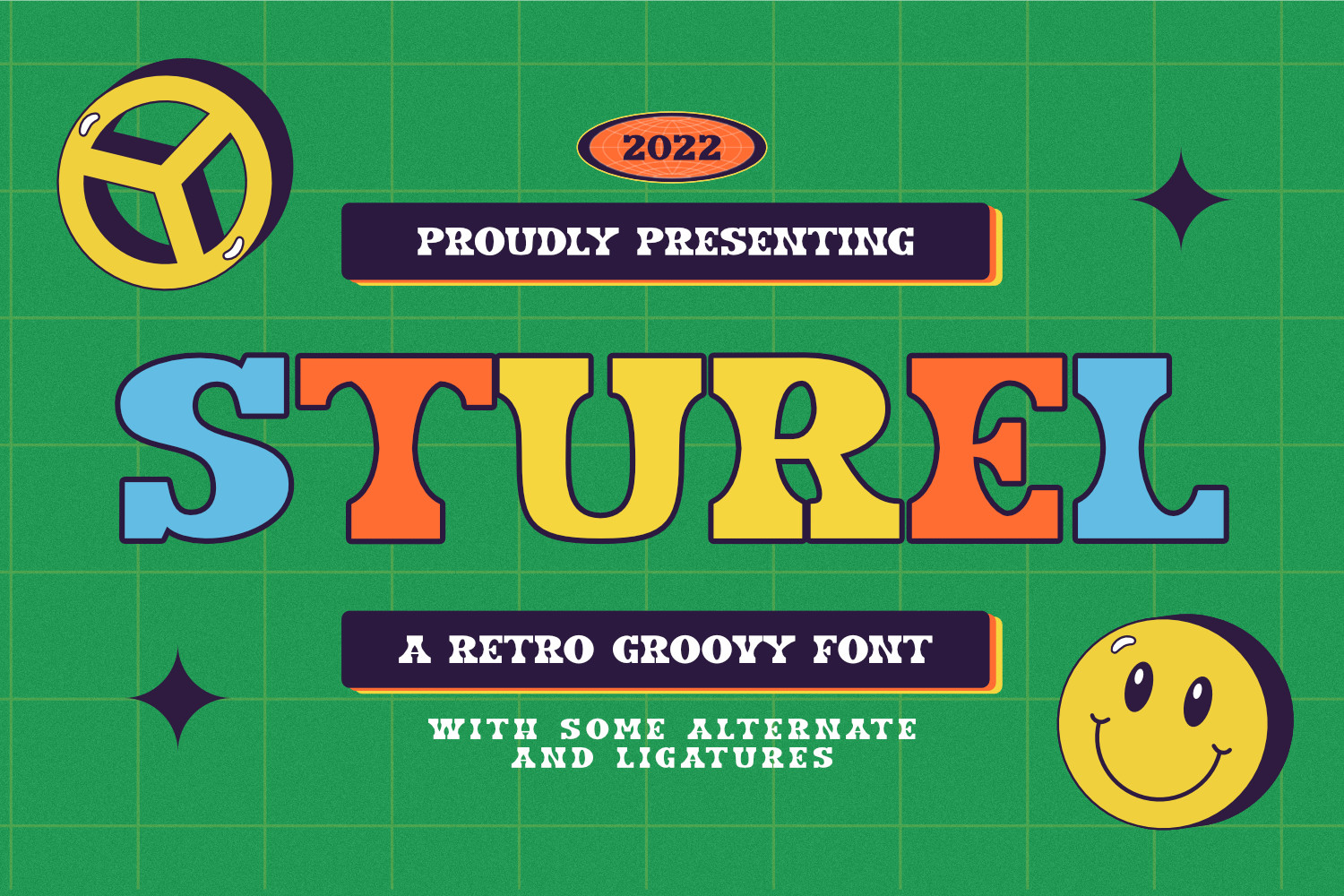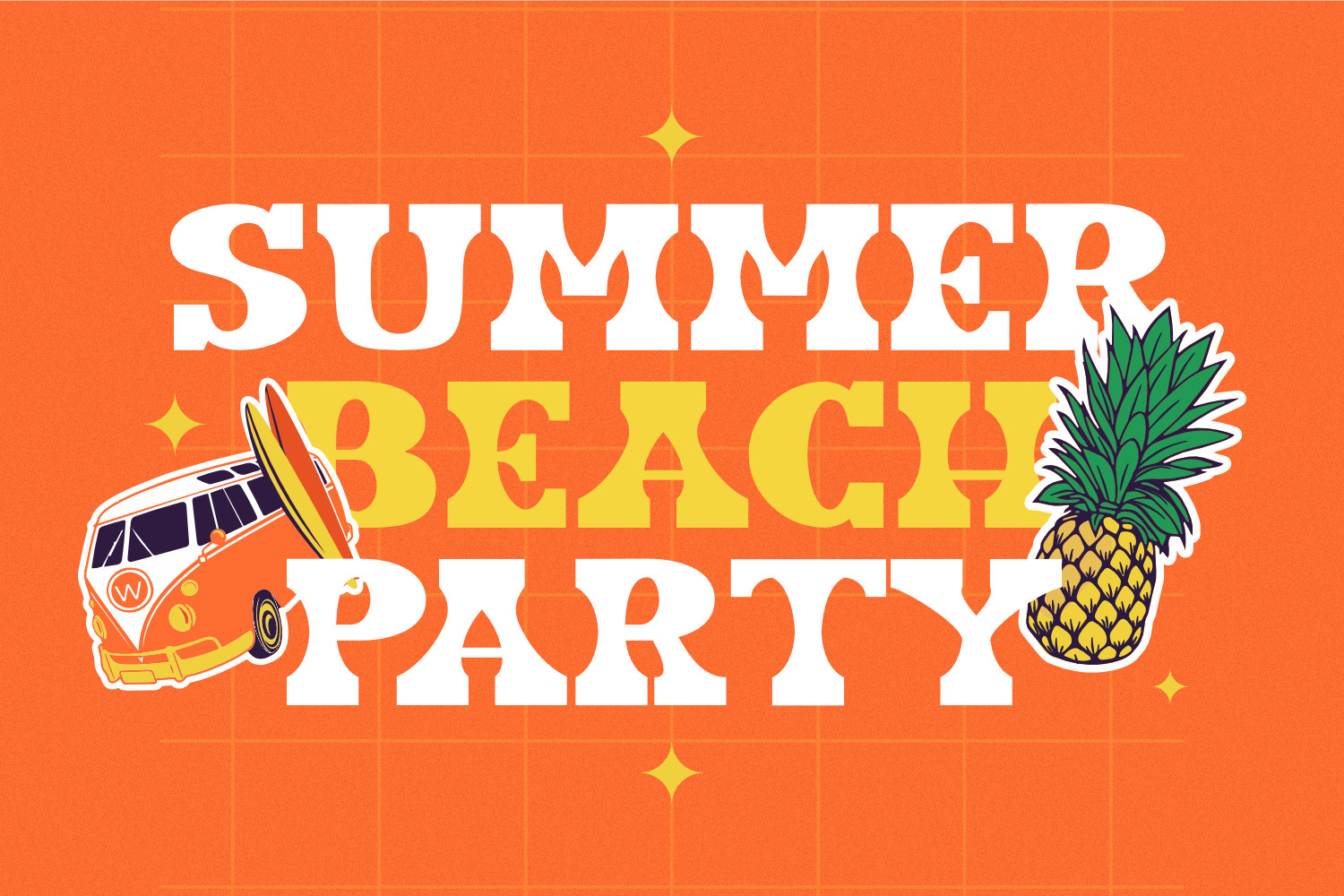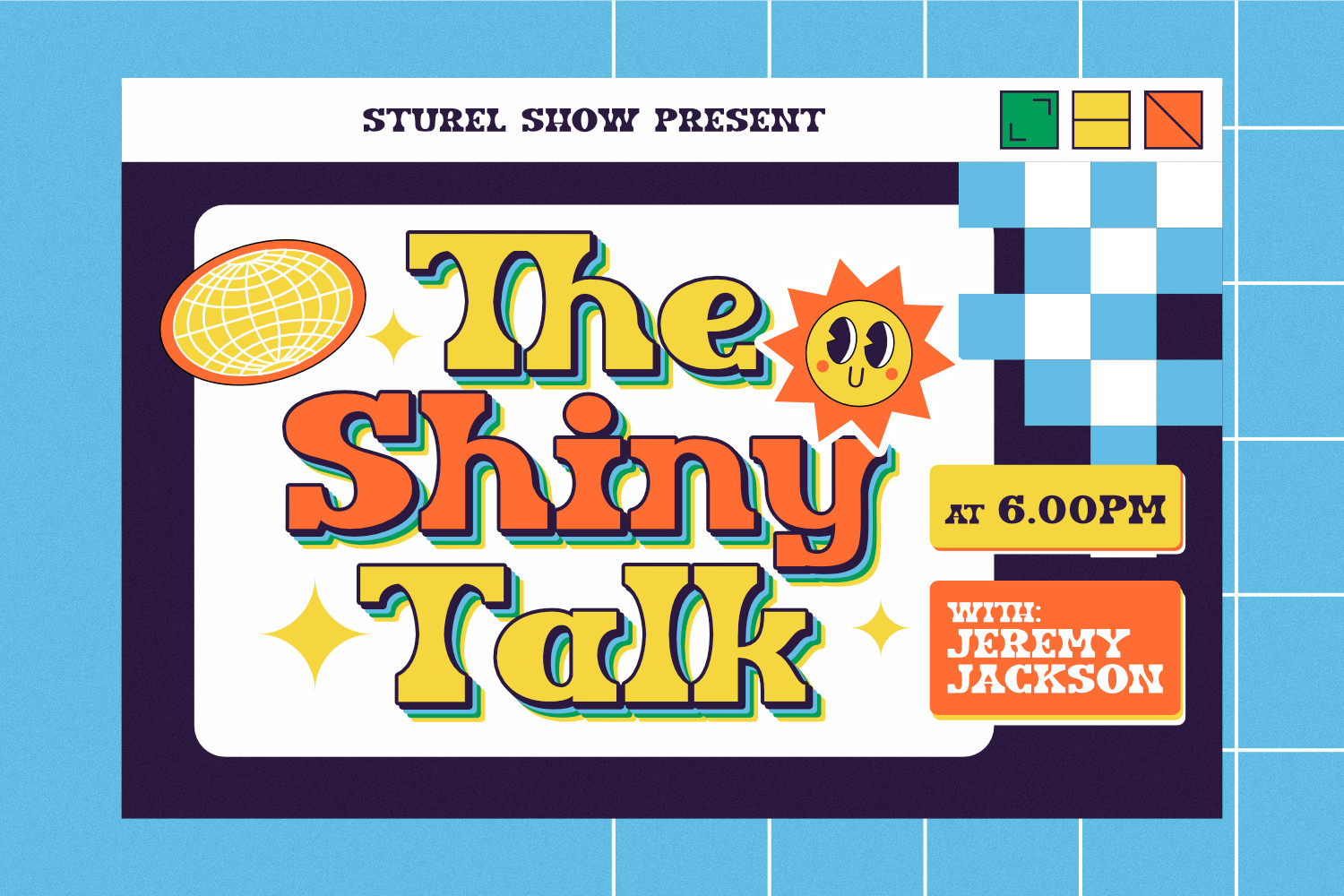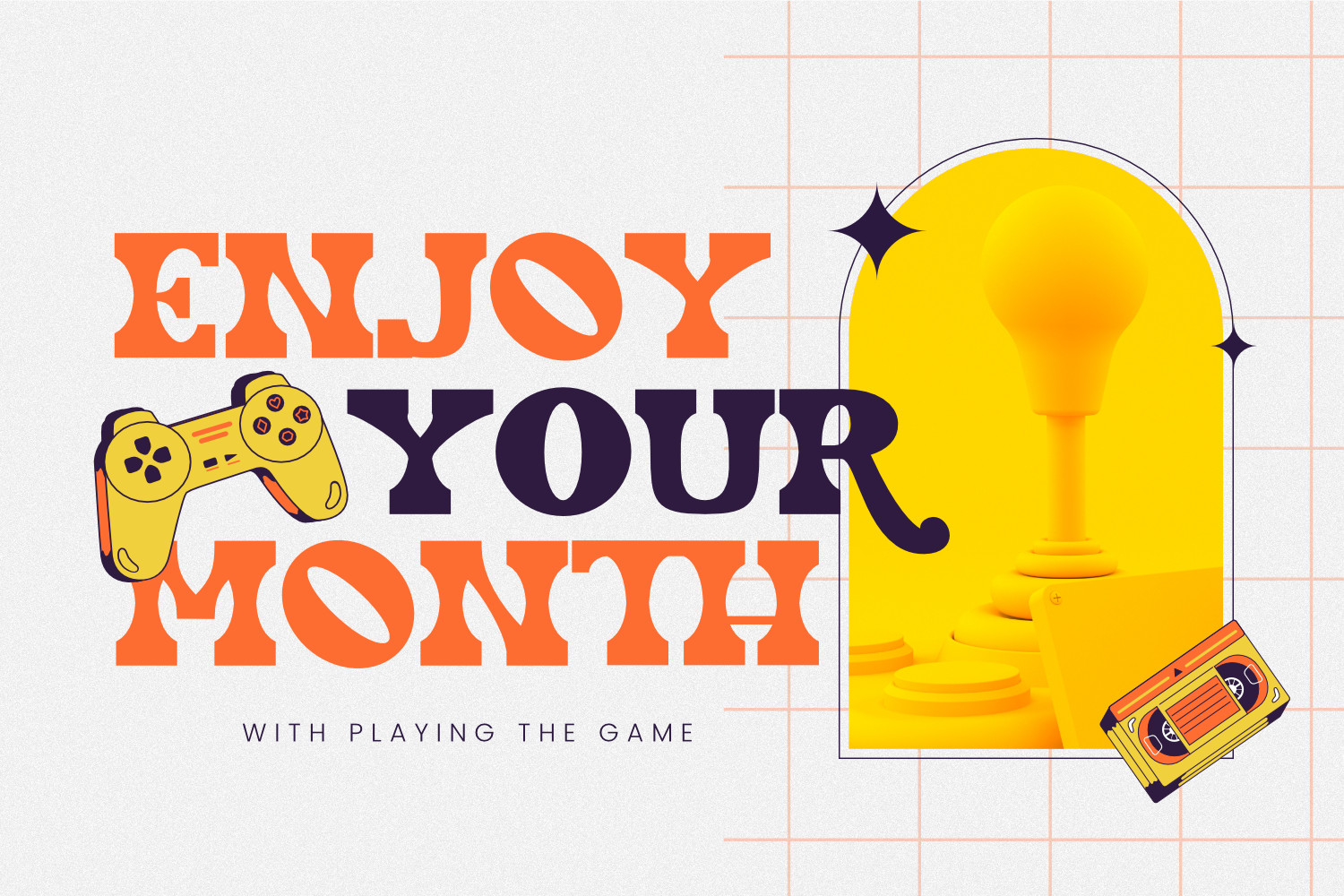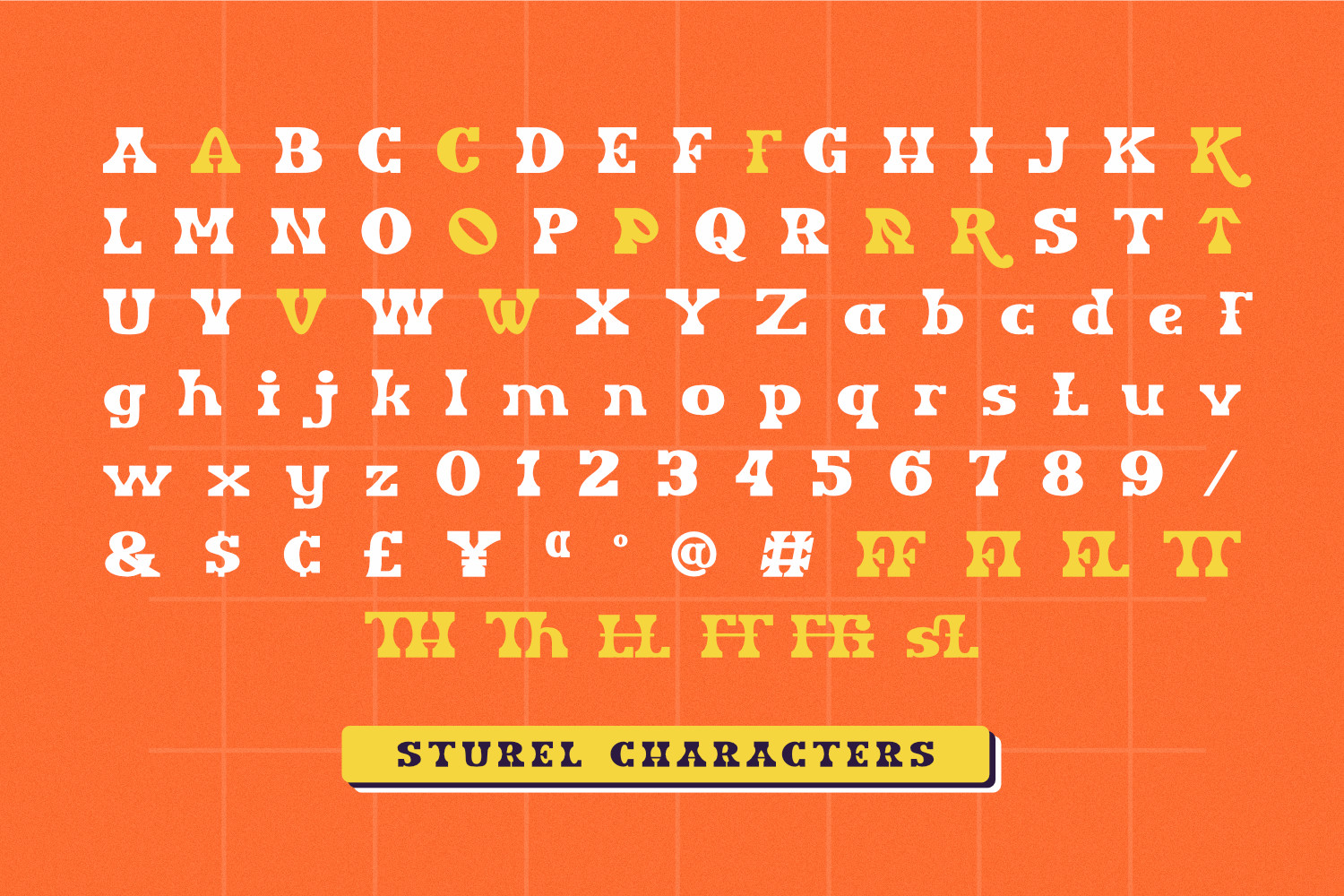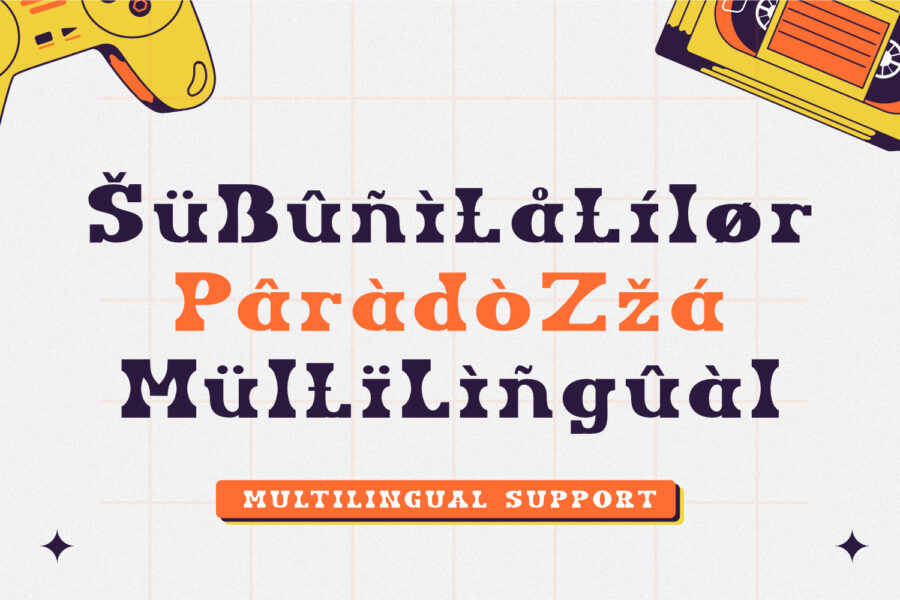
Sturel is a retro groovy font that bursts with vibrant personality and playful energy. With its bold, chunky letterforms and whimsical curves, Sturel is inspired by the carefree spirit of the ‘60s and ‘70s. Its cheerful vibe is perfect for evoking nostalgic feelings in modern design, especially for projects related to summer events, retro branding, or anything needing a youthful pop.
The font includes alternate characters and fun ligatures to enhance flexibility and visual interest. Whether used in vibrant posters, groovy packaging, or funky social media graphics, Sturel delivers a joyful statement while remaining readable and dynamic across a range of applications.